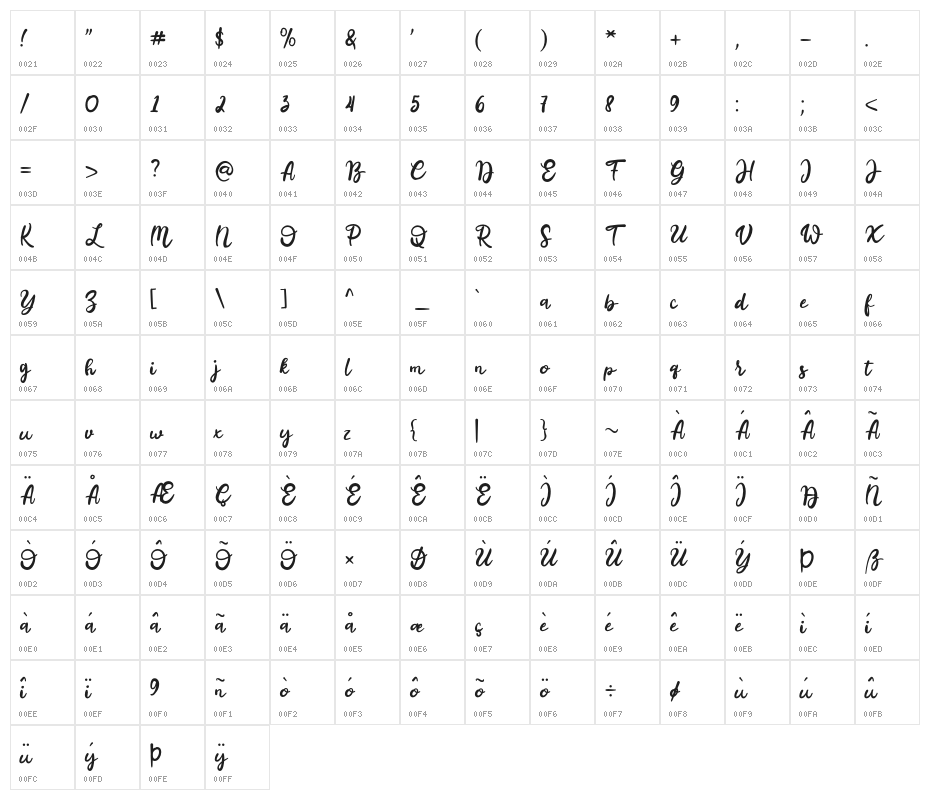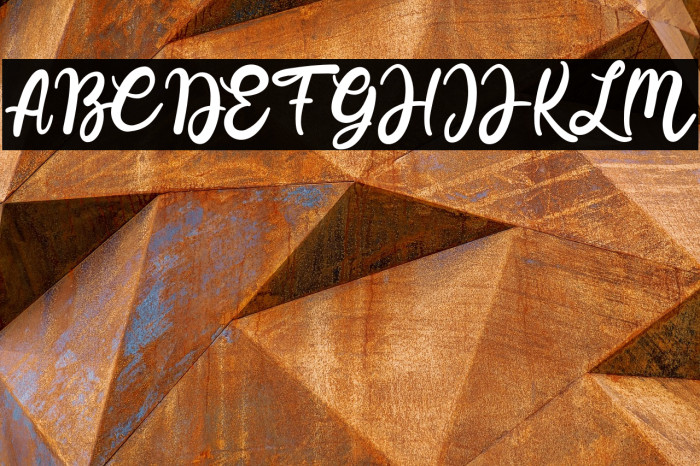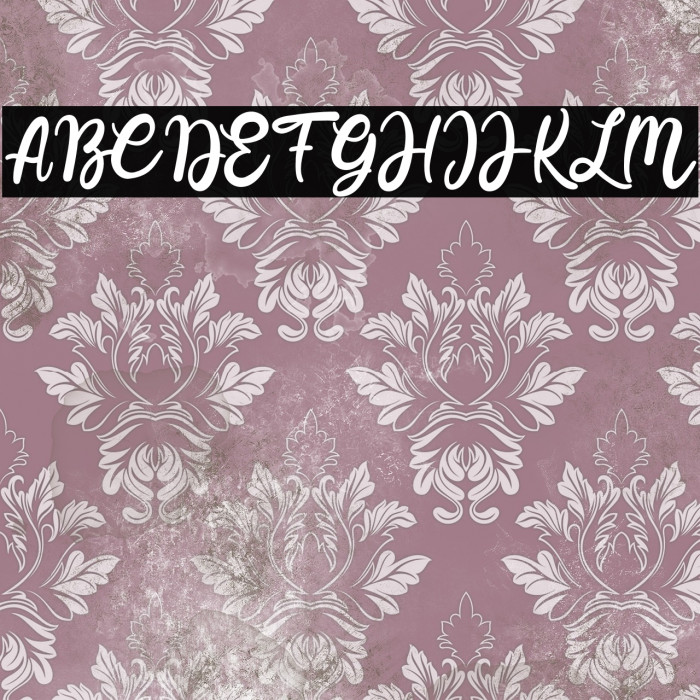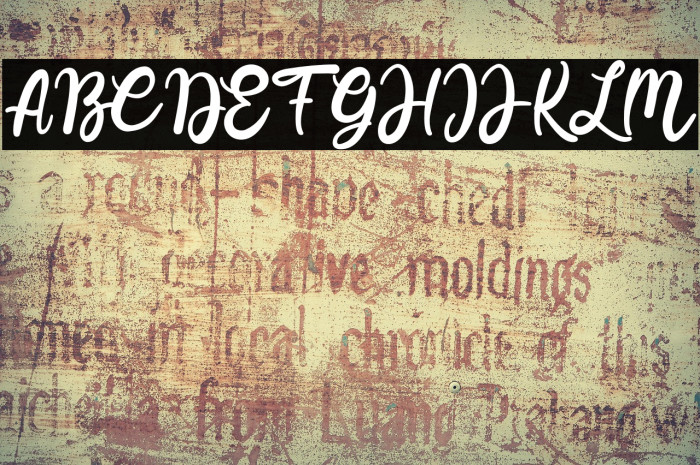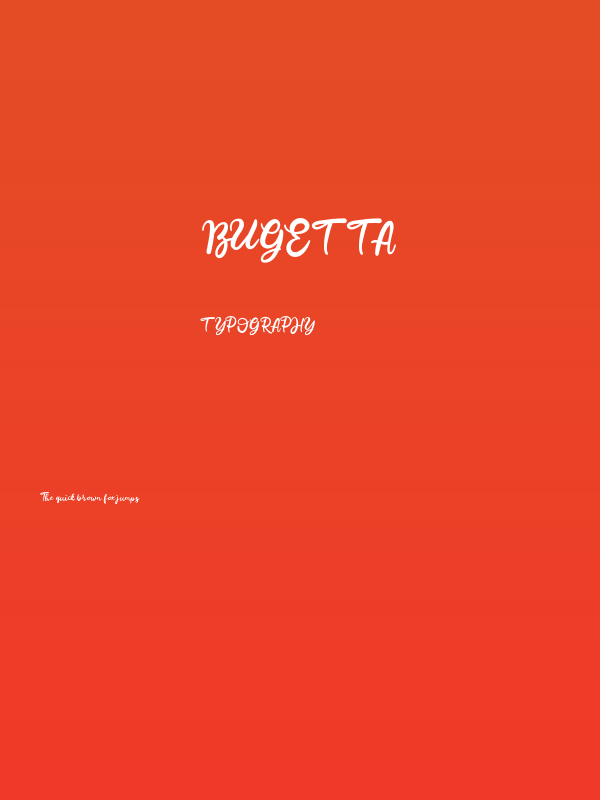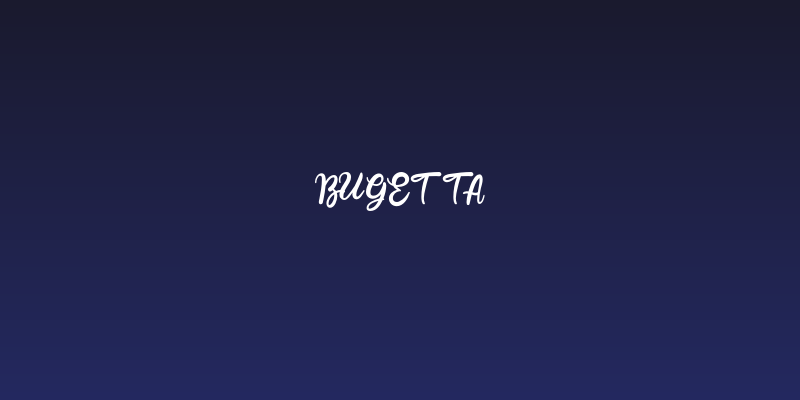
Bugetta Font
Bugetta Description
This font features a lively and flowing script style, characterized by its smooth, cursive strokes and elegant loops. The uppercase letters exhibit a playful yet sophisticated flair, with each character maintaining a consistent height and width, creating a harmonious appearance. The lowercase letters continue the fluidity with gentle curves and a slightly informal touch, making the font versatile for various design needs. The numerals are well-integrated into the script style, maintaining readability while complementing the overall aesthetic. Special characters are thoughtfully designed to match the font's elegant and cohesive look.
| Overall Style | Elegant, Decorative |
| Use Case | Logos, Invitations, Decorative text |
| Proposed Projects | Ideal for wedding invitations, greeting cards, branding, and logo design. |